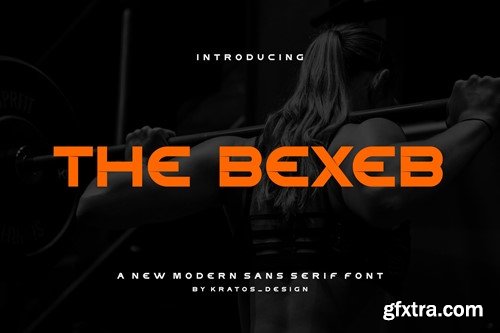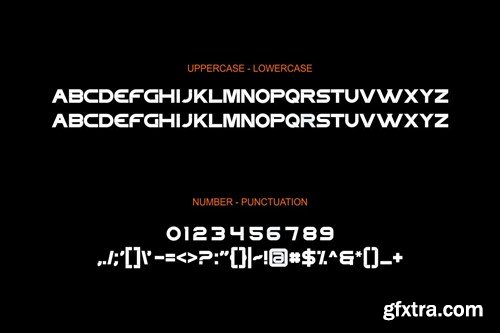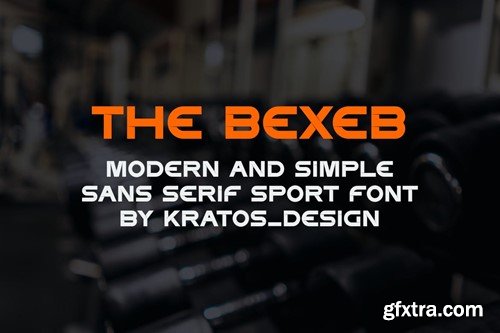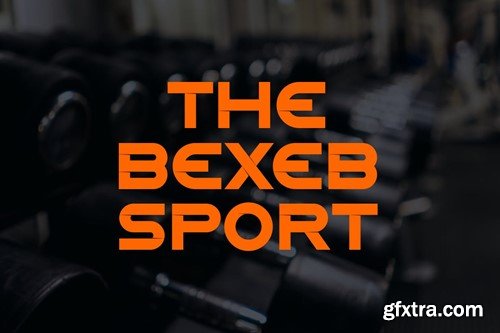
贝谢贝 - RCBKSR7
The Bexeb - Font RCBKSR7
The Bexeb - Font
• Modern Font is a bold and authentic display font. The font is suitable for any branding project like logo, Template Design, Product and many more. outstanding in a wide range of contexts.